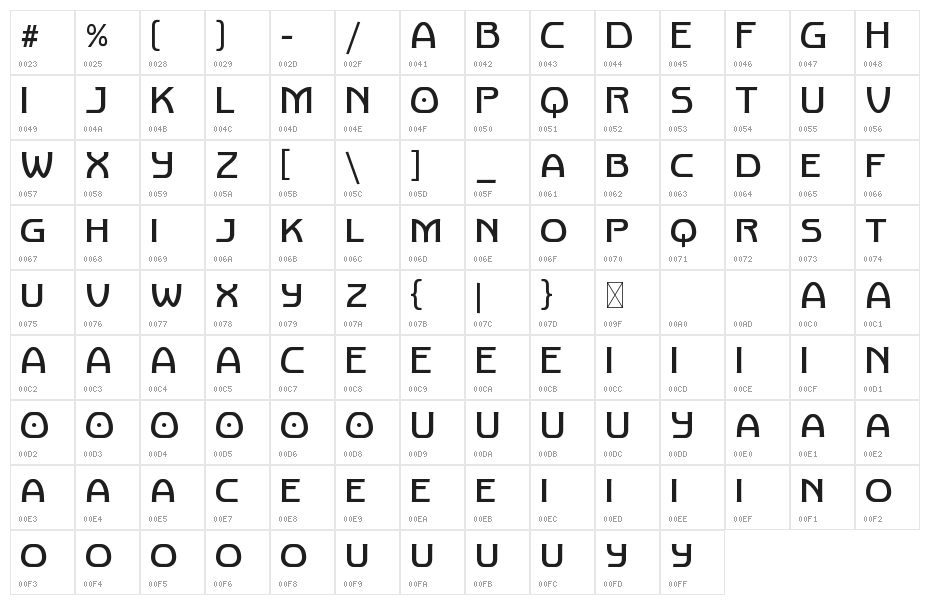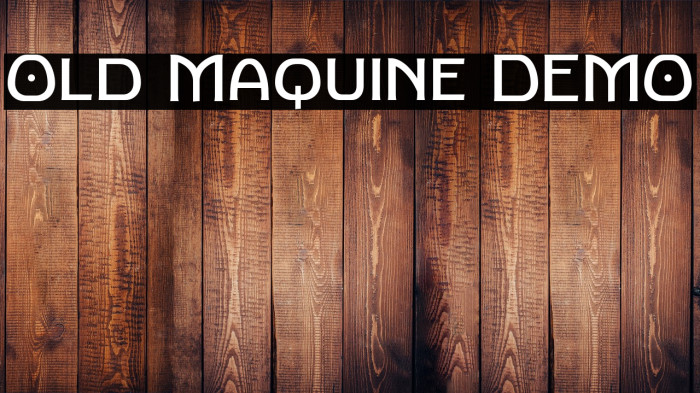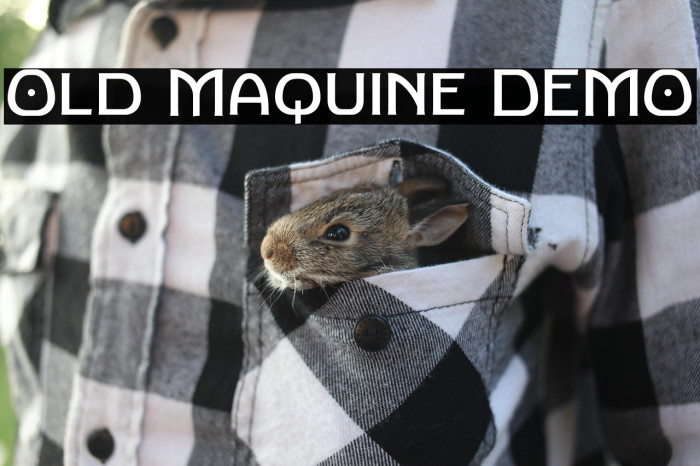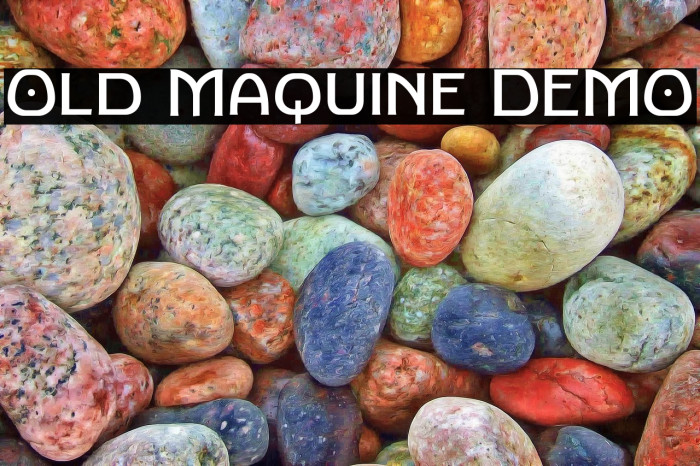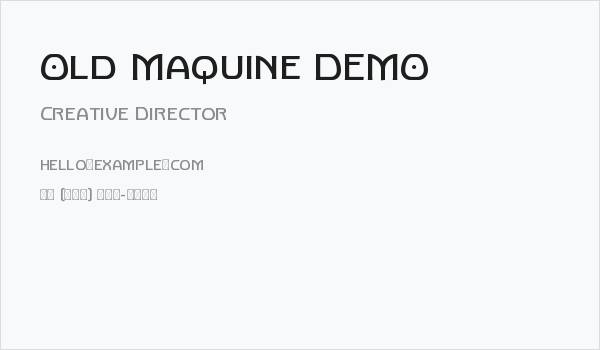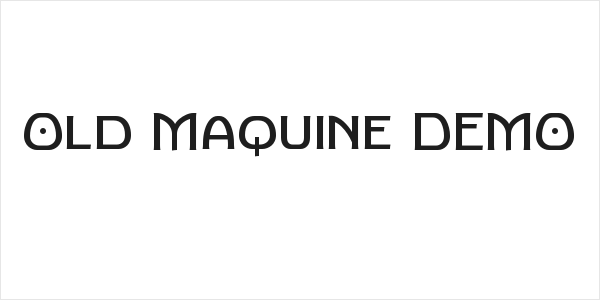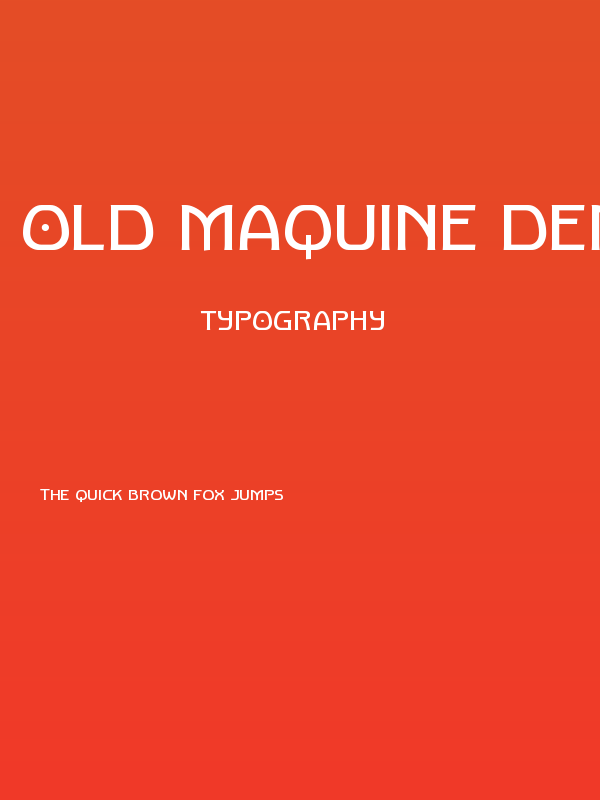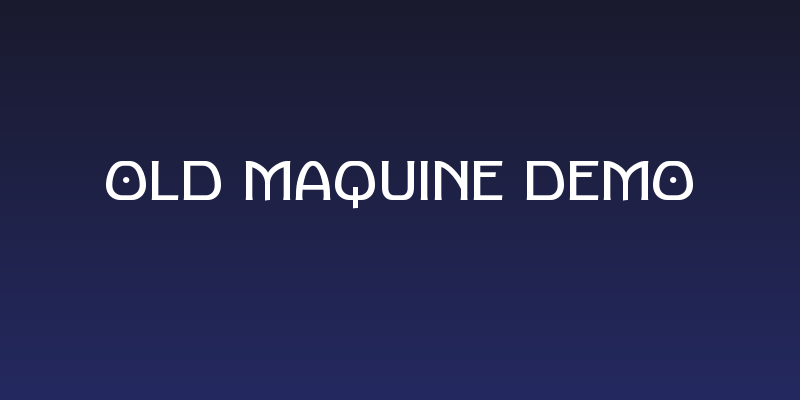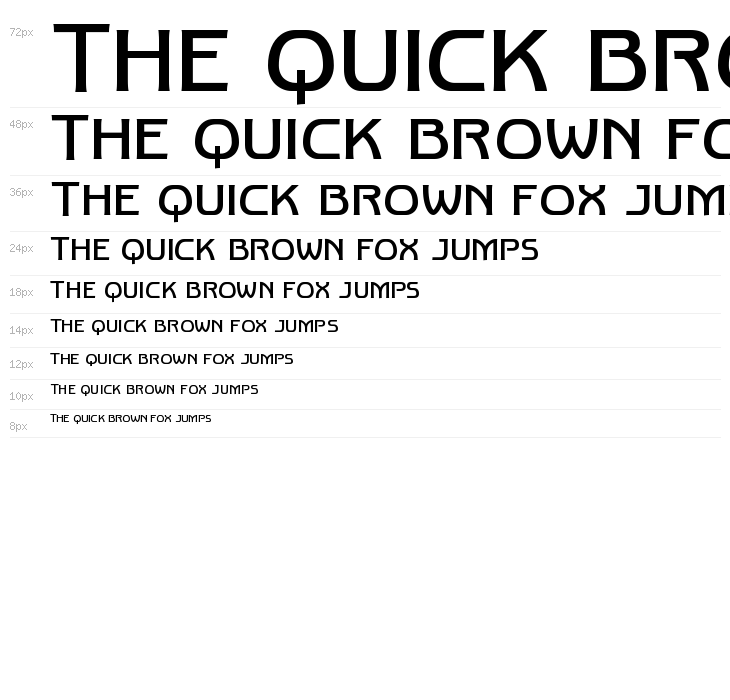
Old Maquine DEMO Font
Old Maquine DEMO Description
This font features a modern and geometric design with clean lines and a futuristic aesthetic. The characters are constructed with a consistent stroke width, giving it a uniform appearance. The angular and slightly rounded edges provide a unique blend of sharpness and softness. The uppercase letters are bold and prominent, while the lowercase letters maintain a similar style, ensuring readability. The numerals and special characters are designed to complement the overall look, making it versatile for various applications.
| Use Case | Headlines, Logos, Digital Interfaces |
| Proposed Projects | Ideal for technology branding, futuristic posters, digital interfaces, and modern advertising campaigns. |